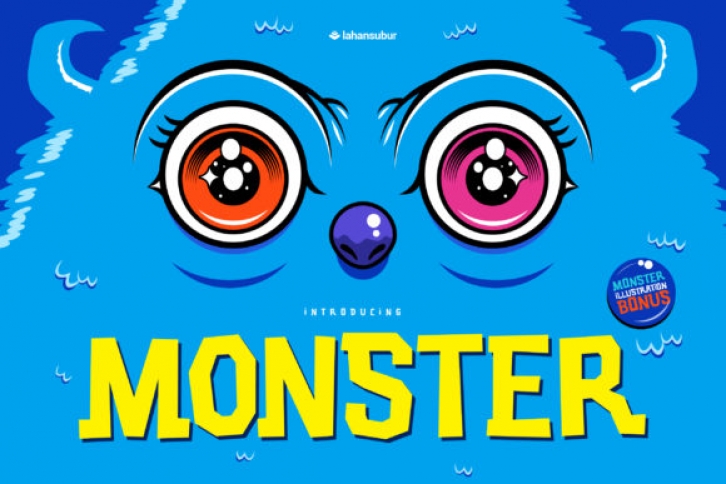
Monster is a cute and quirky display font. It will add an incredibly joyful touch to your designs. Add this beautiful display font to each of your creative ideas and notice how it makes them stand out!